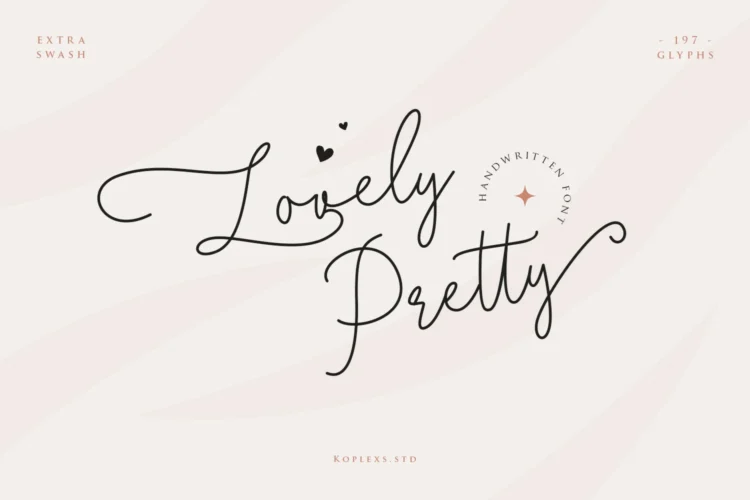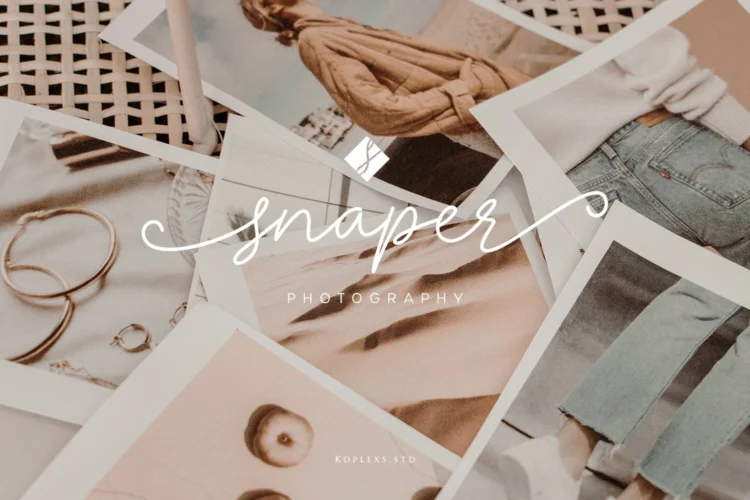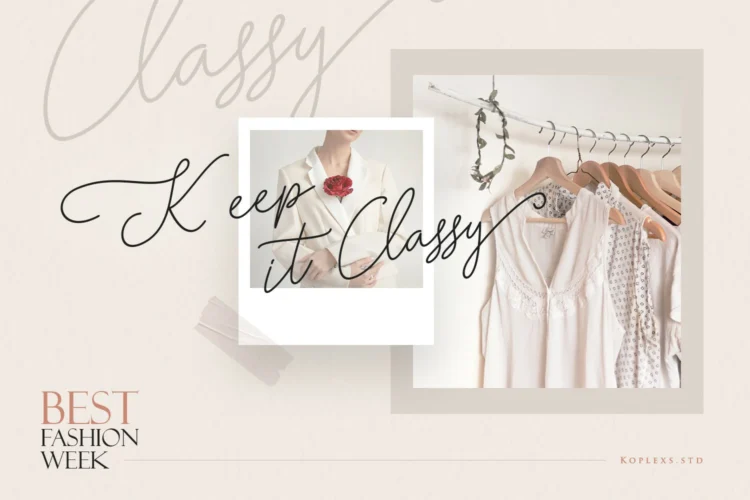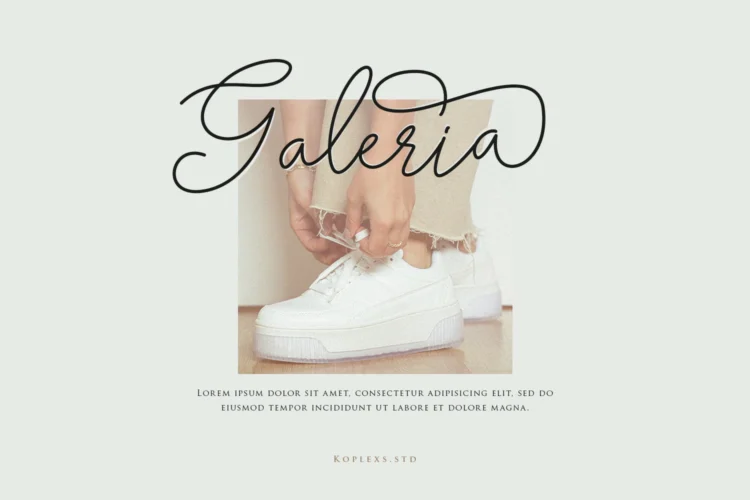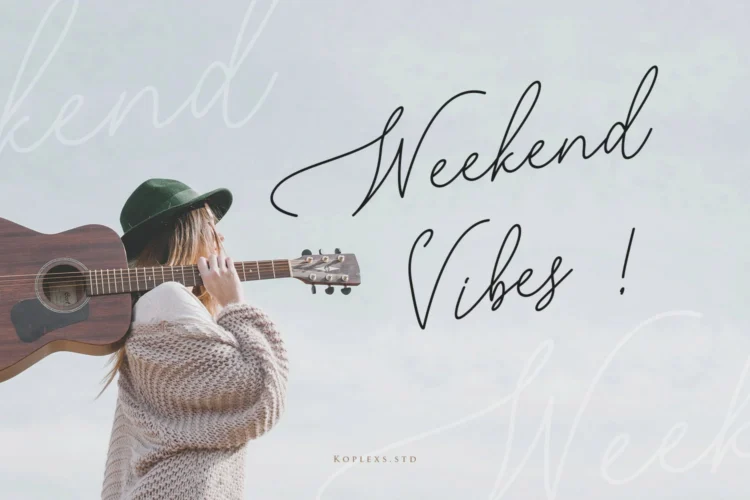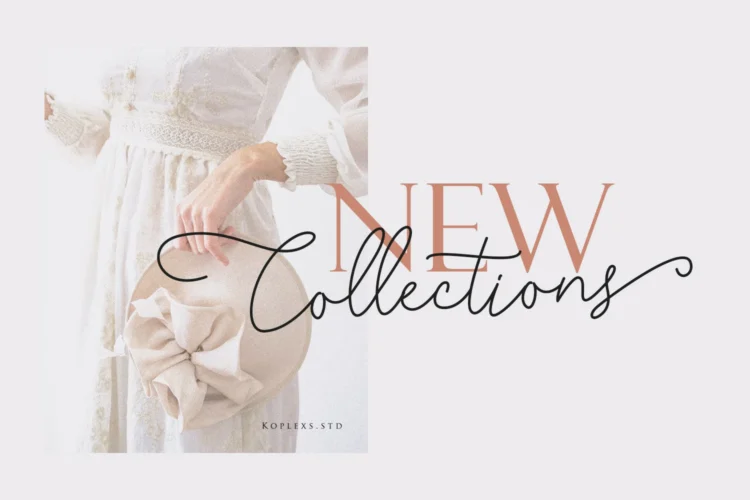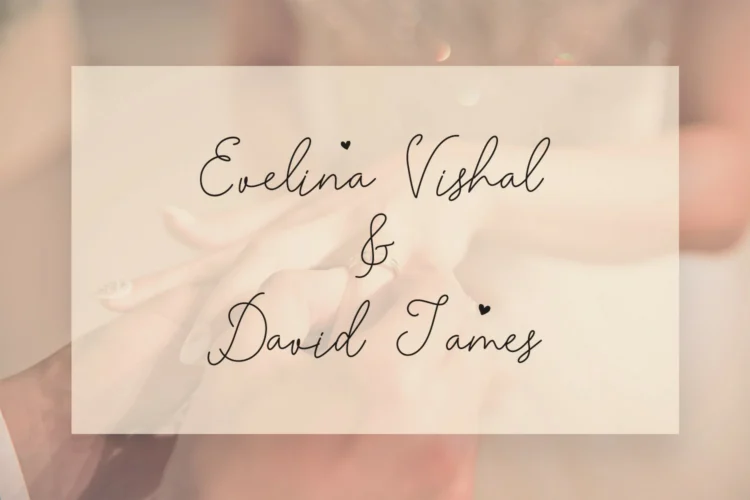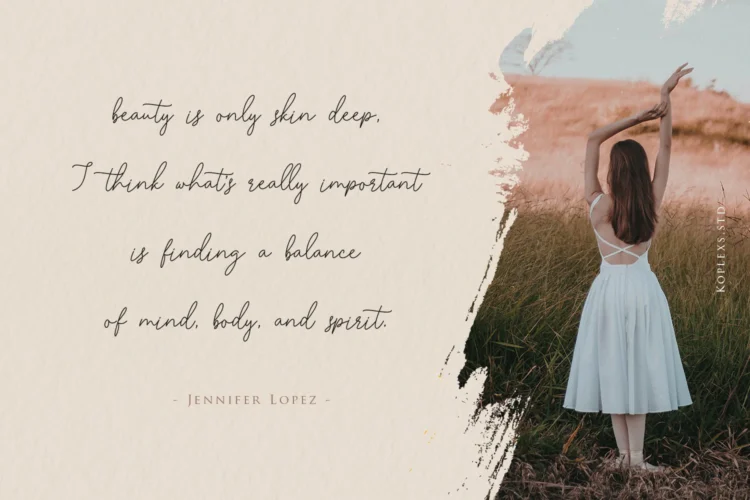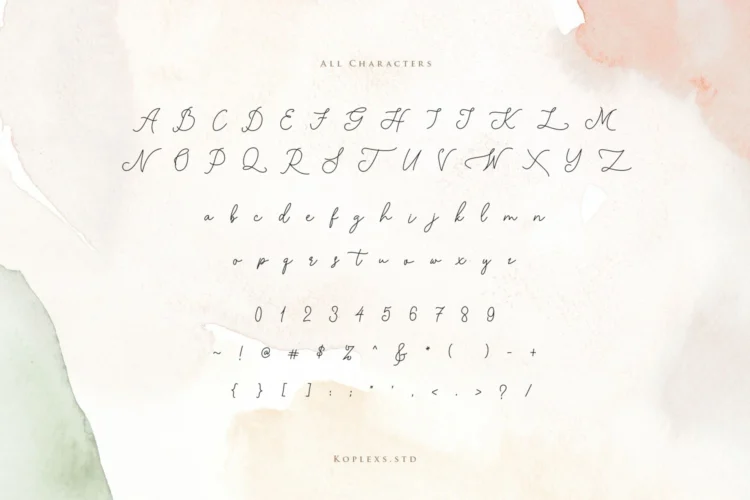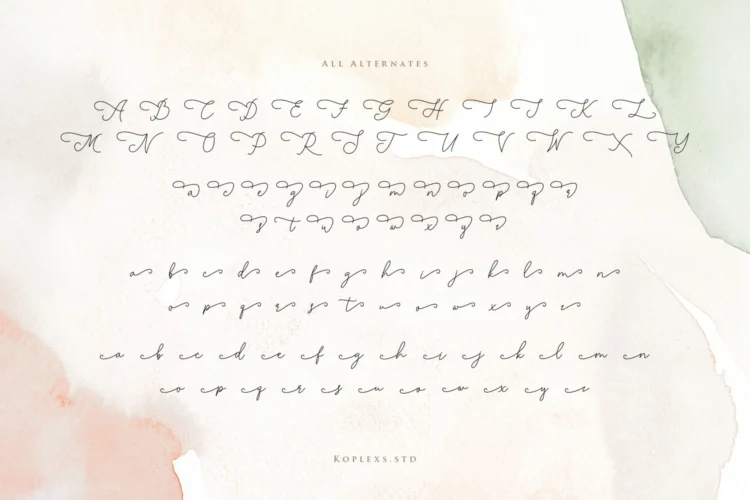
Lovely Pretty Font – Elegant Handwritten Script Font for Wedding, Branding & Luxury Design
Lovely Pretty Font is a beautifully handcrafted Handwritten Font designed to bring elegance and charm into every project. With its flowing strokes and graceful swashes, this Calligraphy Font embodies a timeless sense of romance and sophistication, making it a perfect choice for modern creatives.
This script font combines the softness of handwritten styles with the refinement of professional typography, offering versatility for personal and commercial use. Whether you are creating invitations, branding designs, or luxury packaging, Lovely Pretty Font adapts seamlessly to your vision.
Lovely Pretty Font Perfect for :
Lovely Pretty Font is ideal for:
- Wedding Font – invitations, save the date, place cards, and love letters.
- Branding Font – logos, business cards, and identity designs.
- Cosmetic Font – luxury beauty product packaging and advertisements.
- Aesthetic Font – social media graphics, inspirational quotes, and posters.
- Logo Font – fashion, photography, boutique, and lifestyle brands.
- Modern Fonts Projects – editorial layouts, magazines, and online stores.
- Elegant Font & Luxury Font – premium product labels, high-end stationery, and event promotions.
This font isn’t just beautiful it’s versatile. From romantic weddings to luxury branding projects, Lovely Pretty Font adds a touch of sophistication and emotion, making your designs unforgettable.